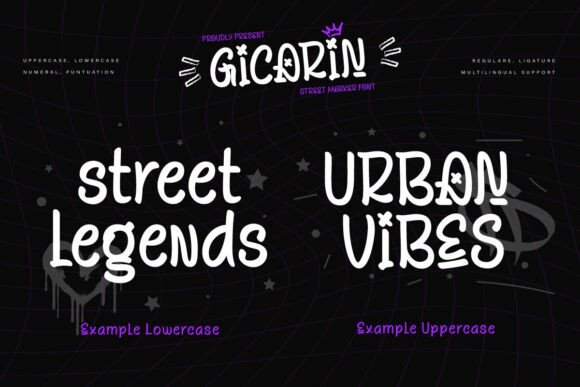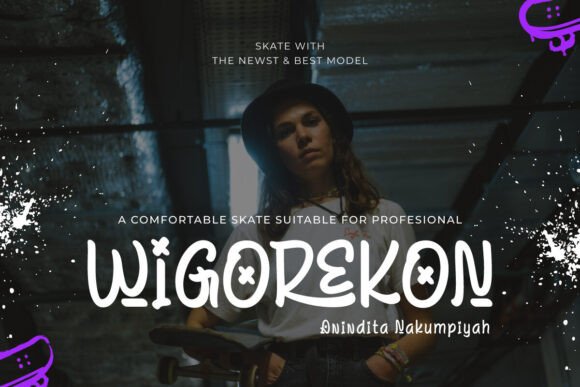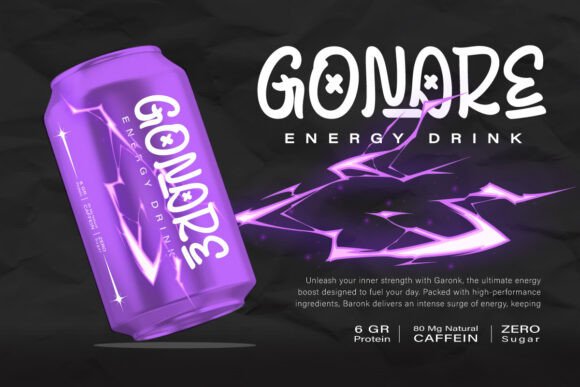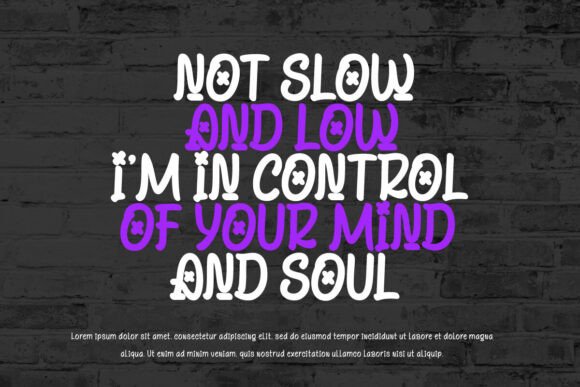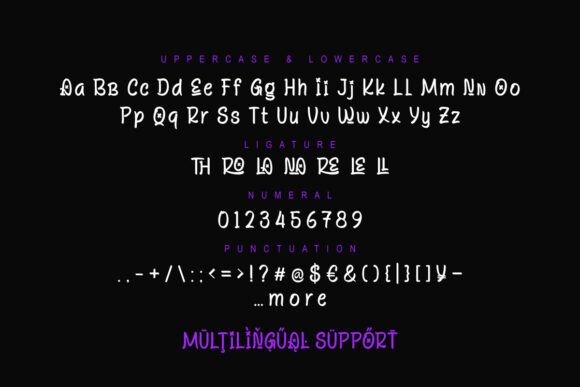
Gicarin Font: Unleashing the Raw Energy of Street Art in Your Designs
In the world of typography, few fonts capture the essence of street art and urban culture as boldly as Gicarin. This graffiti display font is a vibrant, dynamic typeface that embodies the rebellious spirit of street art, making it perfect for designers looking to add an edgy, creative flair to their projects. Whether you’re working on urban designs, streetwear branding, music covers, or any other project that demands a bold aesthetic, Gicarin is the perfect choice.
The Inspiration Behind Gicarin
Gicarin is more than just a font – it’s an expression of the urban artistic movement. Inspired by the graffiti that adorns city walls and the streets, this font brings the raw energy and spontaneity of street art to your designs. Each stroke, each curve, and each letterform is a testament to the creative freedom and rebelliousness that graffiti culture embodies. With Gicarin, you can infuse your designs with the same bold, unapologetic spirit that drives street artists to create.
Key Features of Gicarin Font
Gicarin boasts a range of features that make it a standout choice for designers seeking a bold, graffiti-inspired typeface. Some of its key characteristics include:
• Graffiti-Inspired Strokes: The font’s strokes are reminiscent of spray paint and marker ink, giving it an authentic street art feel.
• Rebellious Flair: Gicarin’s letterforms are bold, expressive, and unapologetic, perfect for designs that demand attention.
• Dynamic Aesthetic: The font’s unique blend of thick and thin lines, sharp edges, and fluid curves creates a dynamic, eye-catching effect.
• Urban Authenticity: Gicarin’s design is deeply rooted in urban culture, making it an excellent choice for projects that require an edgy, streetwise aesthetic.
Use Cases for Gicarin Font
Gicarin’s versatility makes it suitable for a wide range of design projects, including:
• Urban Designs: From posters and flyers to billboards and signage, Gicarin is perfect for designs that require a bold, attention-grabbing aesthetic.
• Streetwear Branding: Add an urban edge to your streetwear brand with Gicarin’s bold, graffiti-inspired typography.
• Music Covers: Give your music covers a dynamic, edgy look with Gicarin’s unique blend of street art and typography.
• Merchandise: From t-shirts to tote bags, Gicarin is an excellent choice for designing merchandise that demands attention.
Why Choose Gicarin Font?
With so many fonts available, why choose Gicarin? Here are just a few reasons why designers and crafters love this graffiti display font:
• Unique Aesthetic: Gicarin’s bold, graffiti-inspired design sets it apart from more traditional typefaces.
• Authenticity: This font is deeply rooted in urban culture, making it an excellent choice for designers seeking an authentic street art aesthetic.
• Versatility: Gicarin’s dynamic design makes it suitable for a wide range of projects, from urban designs to streetwear branding.
Gicarin Font is a bold, expressive typeface that embodies the raw energy of street art. With its graffiti-inspired strokes and rebellious flair, this font is perfect for designers looking to add an urban, creative edge to their projects. Whether you’re working on urban designs, streetwear branding, music covers, or merchandise, Gicarin is the perfect choice. Unleash the power of street style with Gicarin, and take your designs to the next level.